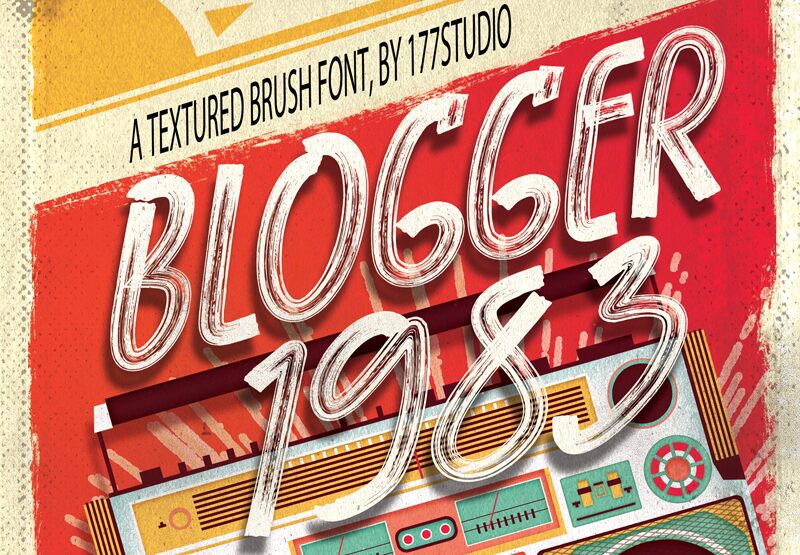
BLOGGER 1983 BRUSH Regular
BLOGGER 1983 BRUSH FONT is a supercharged brush font style, street-wise brush font bursting with energy. With extra attention to quick strokes and sharp details. This font is very suitable for a variety of places such as clothing, poster, tittle books, stationery designs, quotes, branding, logos, invitations, greeting cards, t-shirts, packaging designs and more.